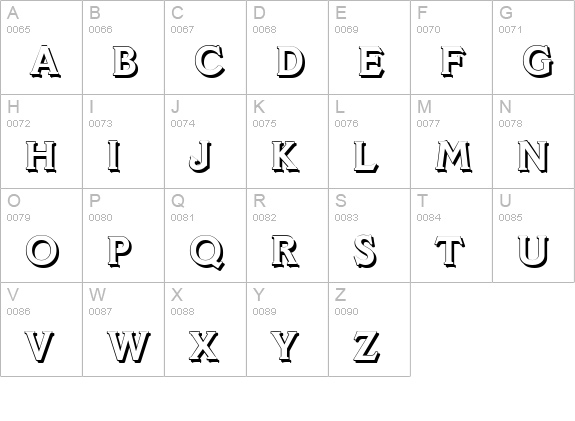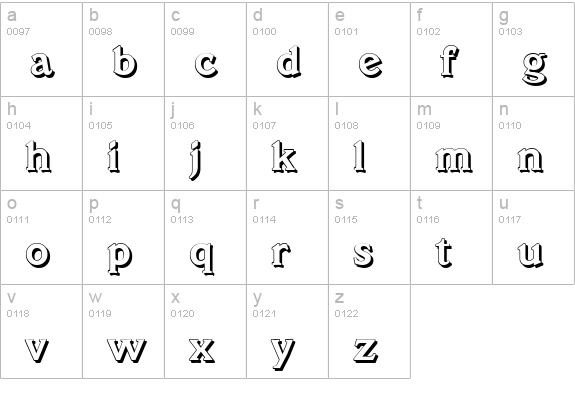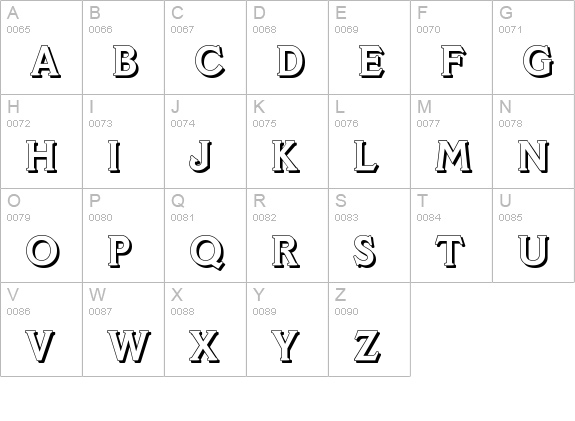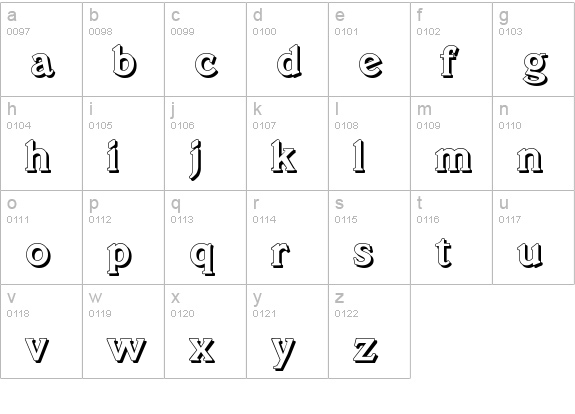
VeracruzShadow-Bold Font Details
VeracruzShadow-Bold is a strong, high-contrast variant in the VeracruzShadow typeface family \xE2\x80\x94 well suited to headlines, attention-grabbing titles, and strong calls-to-action.
VeracruzShadow-Bold is a striking and bold display font that commands attention with its unique shadow effect. This font exudes a sense of modernity and sophistication, making it perfect for eye-catching headlines, posters, and branding projects. The intricate shadow detail adds depth and dimension to each character, creating a visually stunning impact. What makes VeracruzShadow-Bold even more appealing is that it is available for free download at FontsMarket.com. This means you can effortlessly elevate your designs with this stylish and impactful font without any cost involved. Don't miss out on the opportunity to add VeracruzShadow-Bold to your font collection and bring a touch of elegance to your creative projects.